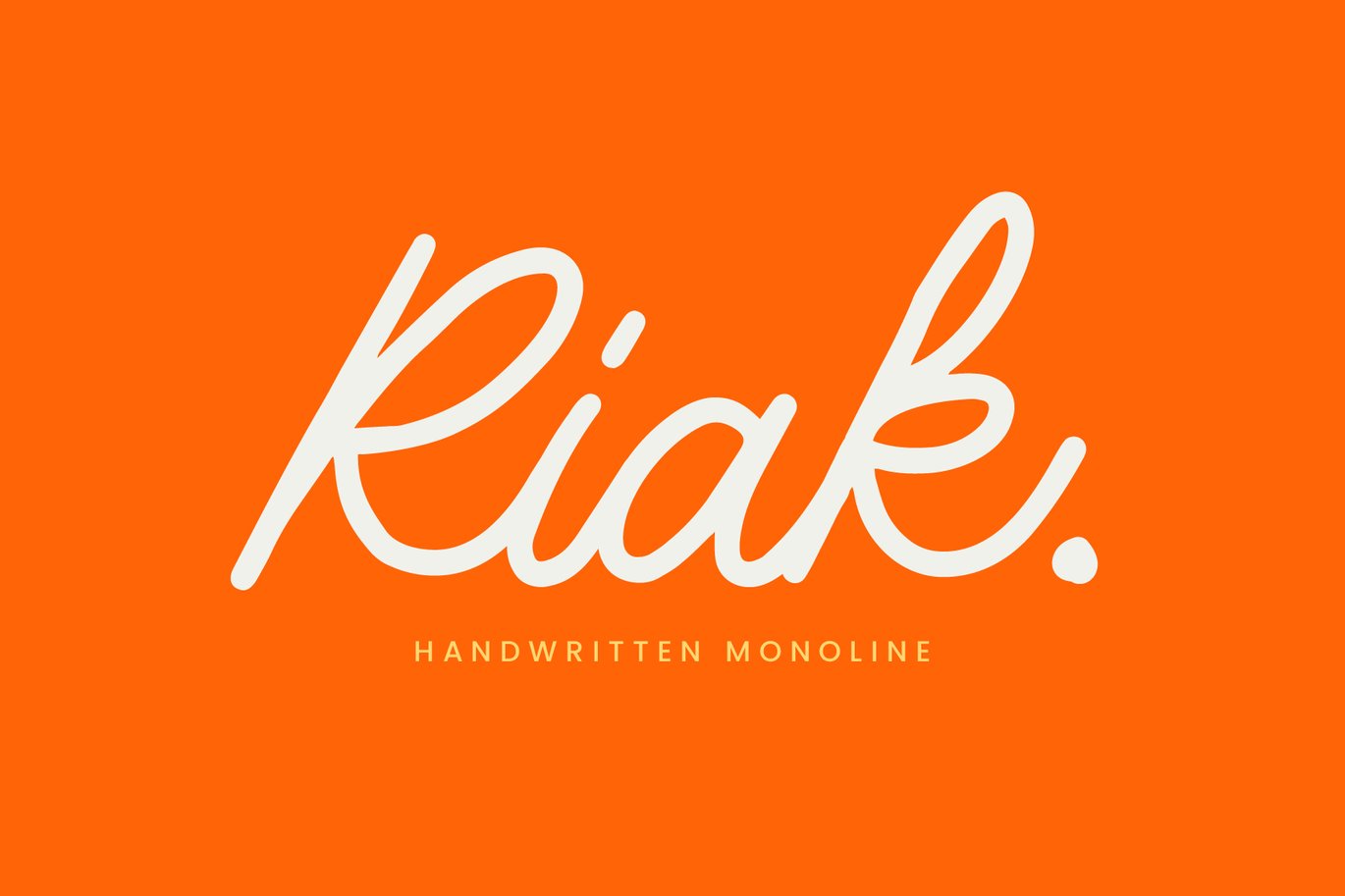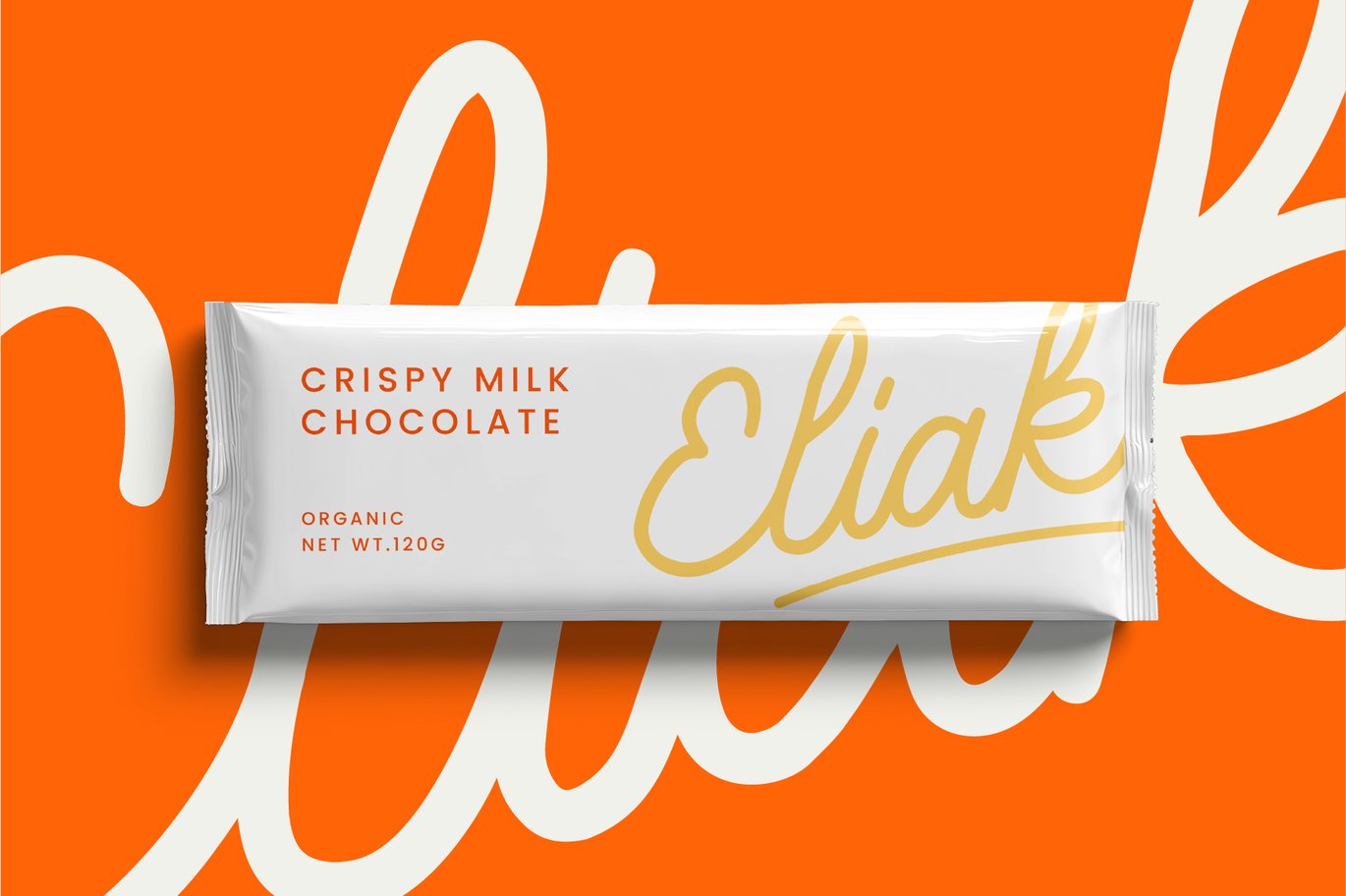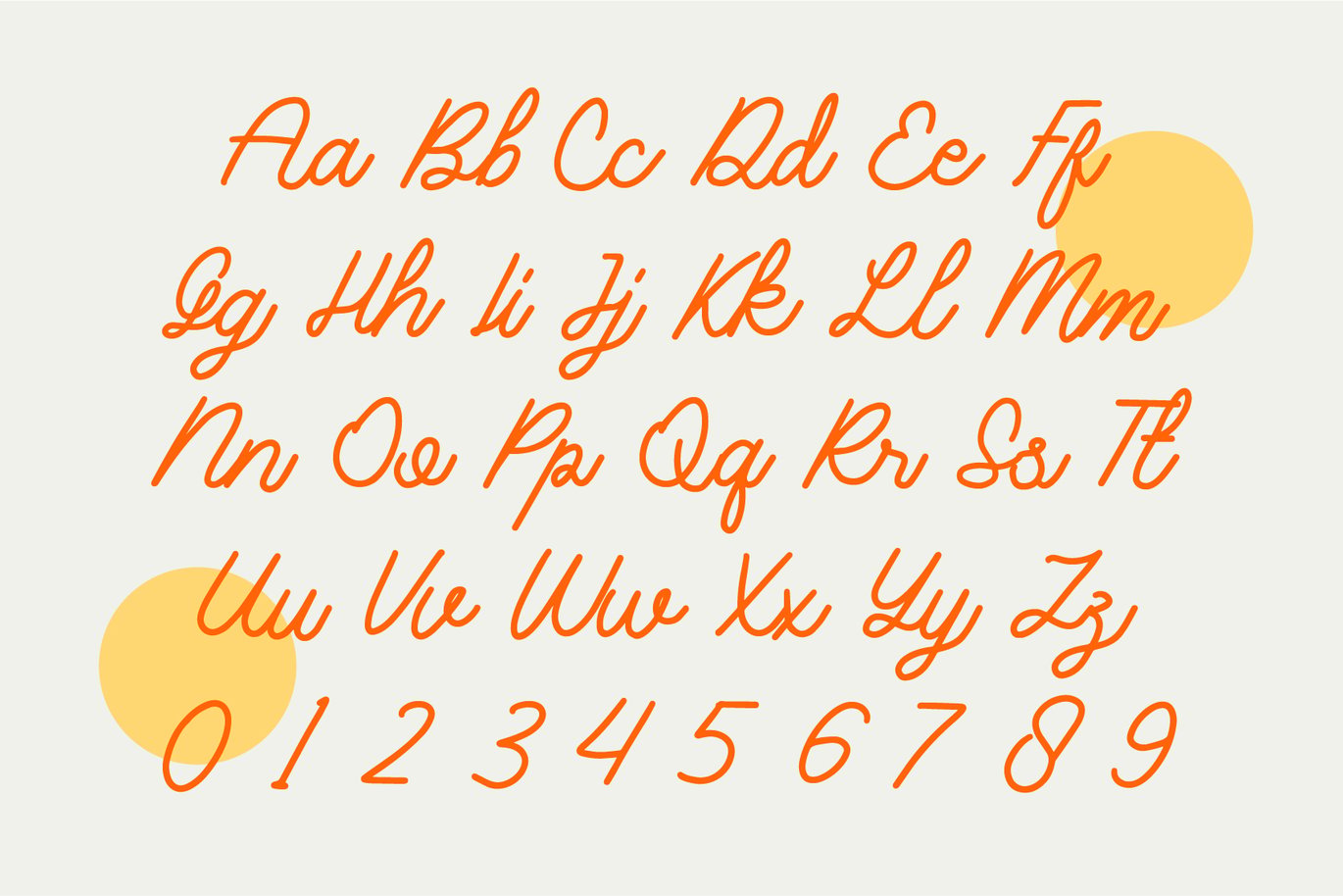
Riak is written with a single, even line, like a felt-tip pen that never changes pressure. The letters join in a loose, natural way, and some capitals loop back on themselves. The full stop after “Riak” on the cover is a nice touch: it reads like a signature.
The chocolate bar mock-up shows how it works as a brand name, with “Eliak” in gold on a white wrapper. The alphabet sheet covers upper and lowercase plus numerals, and simetro’s listing mentions basic punctuation and multilingual support in OTF and TTF.
Best uses for Riak
- Chocolate, snack and food packaging
- Café and bakery logos
- Signatures and personal branding
- Greeting cards and invitations
- Instagram quotes
Riak is thin and light, so pair it with a sans that has some weight. Poppins in Medium capitals suits product details like “Crispy Milk Chocolate”. Mulish works for body text. For a serif contrast, try Lora.
Riak Handwritten Monoline Font